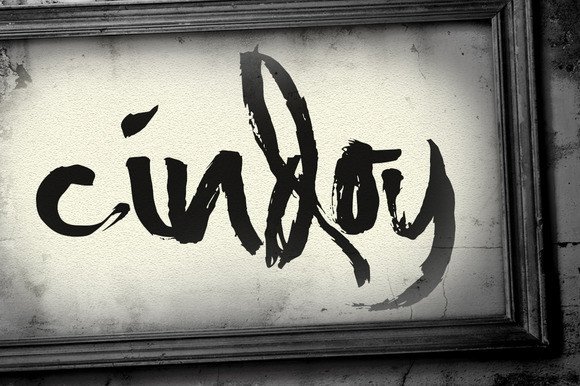
Introduction to Itaki Font
Have you ever found yourself stuck in a creative rut, searching for that perfect font to elevate your design project? You know, that moment when you’re pouring your heart and soul into a layout, and all it’s missing is that one special touch to make it truly shine?
Well, I’m here to tell you that I’ve discovered a game-changer: the Itaki Font. This stunning brush stroke font is the ultimate design resource for any creative project. With its authentic, textured feel, the Itaki Font adds an unparalleled unique look to your designs, making it perfect for designers who crave a high-quality, eye-catching visual identity.
Not only does the Itaki Font offer a free download, but its transparent background makes it a versatile addition to any design. Whether you’re working on a logo, brochure, or social media graphics, this font is sure to bring your creative project to life in a way that’s truly unforgettable.
Key Features of Itaki Font
- Designed with precision and attention to detail for a professional look
- Perfect for use in logos, branding, and other design elements requiring a unique touch
Honest Review: Itaki Font
I recently had the chance to work with the Itaki Font, and I must say it’s been a pleasant experience. As a designer, I’m always on the lookout for high-quality design resources that can elevate my creative projects. The Itaki Font definitely delivers.
- ✨ High-quality typography: The font is crisp, clear, and easy to read, making it perfect for any design project.
While the Itaki Font is a great resource, there are a few limitations to keep in mind:
- ⚠️ Limited character set: The font doesn’t come with a full character set, which may limit its use for certain design projects.
- ⚠️ Not suitable for small text: Due to its high-quality design, the Itaki Font may not be the best choice for small text or headings.
Overall, I’m impressed with the Itaki Font and would recommend it to fellow designers. Its high-quality typography and free download make it an excellent resource for creative projects.
Itaki Font
The Itaki Font is a high-quality, free download design resource perfect for creative projects. With its transparent background, this font is ideal for use in various design applications.
The Itaki Font is ideal for various design projects, including logos, brochures, posters, and more. Its transparent background makes it perfect for use over images or other design elements.